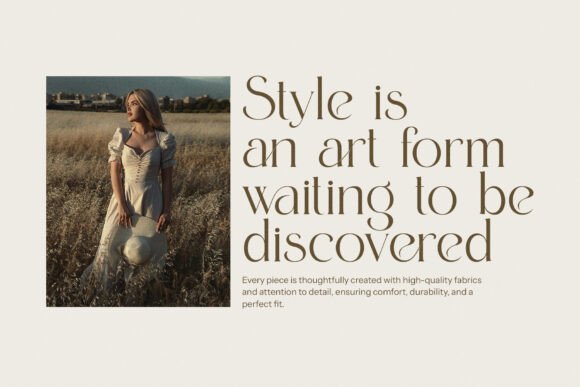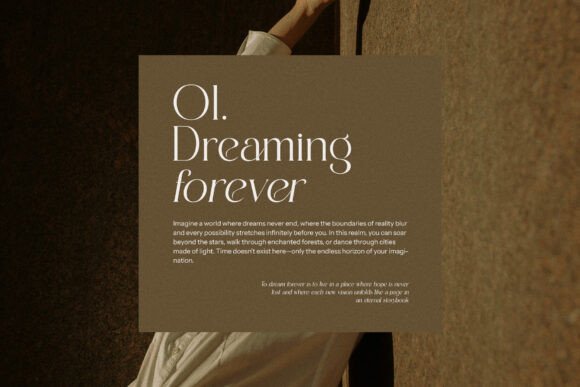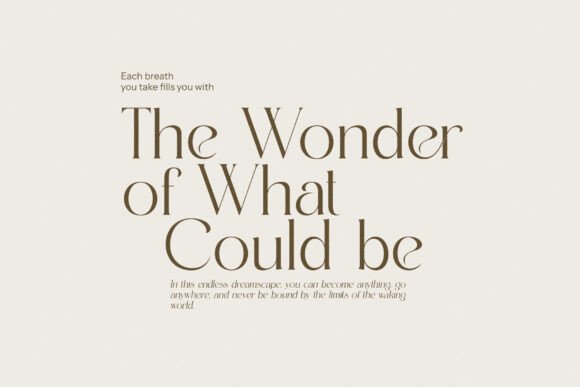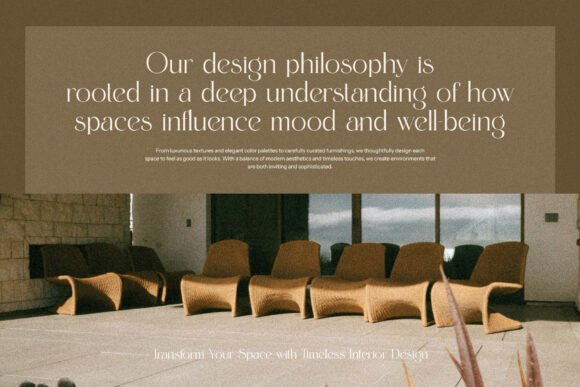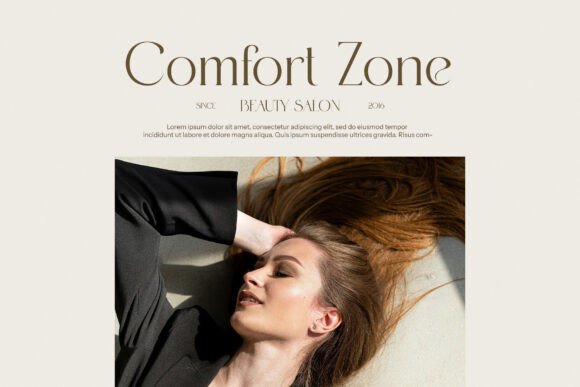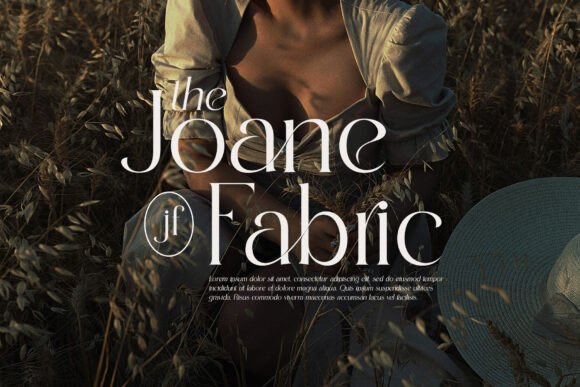
Introduction to Mergila Font
Have you ever found yourself stuck in front of a blank screen, unable to bring your creative vision to life? That’s exactly where I was when I stumbled upon the Mergila Font. Its sleek and modern design immediately caught my eye, and I knew I had to learn more about this versatile design resource.
As a designer, I’m always on the lookout for high-quality fonts that can elevate my projects and give them a touch of sophistication. Mergila Font is more than just a pretty face – it’s a powerful tool that can add depth and character to any creative project, from logos and invitations to websites and more.
Key Features of Mergila Font
- High-quality design resource suitable for creative projects, offering a unique and stylish look.
- Designed with a high level of detail and precision, ensuring a crisp and clear appearance at various resolutions.
- Perfect for use in digital and print projects, including logos, branding materials, and creative graphics.
Honest Review: Mergila Font
As a designer, I’m always on the lookout for high-quality design resources to enhance my creative projects. The Mergila Font is one such resource that caught my attention.
- ✨ Elegant and modern design aesthetic that adds a touch of sophistication to any project.
- ✨ Wide range of font styles and weights to choose from, making it versatile for various design applications.
- ⚠️ The font may not be suitable for projects requiring a transparent background, as it may not display well.
- ⚠️ Some users may find the font’s design to be too minimalist, which may not appeal to those who prefer more ornate or decorative fonts.
Overall, I’m impressed with the Mergila Font’s design quality and versatility. While it may have some limitations, it’s still a valuable resource for designers working on creative projects that require a high-quality, modern font.
Mergila Font is a versatile font that can be used for a variety of creative projects, such as logos, brochures, business cards, and websites. It is a great design resource for anyone looking for a high-quality font with a transparent background.